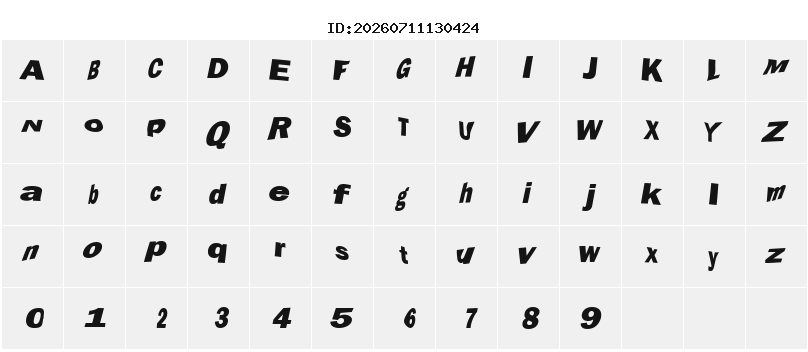
Marola Preview
• Font Name: Marola
• Full Font Name: Marola
About Marola.ttf
Marola.ttf is a modern, elegant sans-serif font designed for ultimate readability and visual harmony. Perfect for branding, headlines, web design, and print materials.